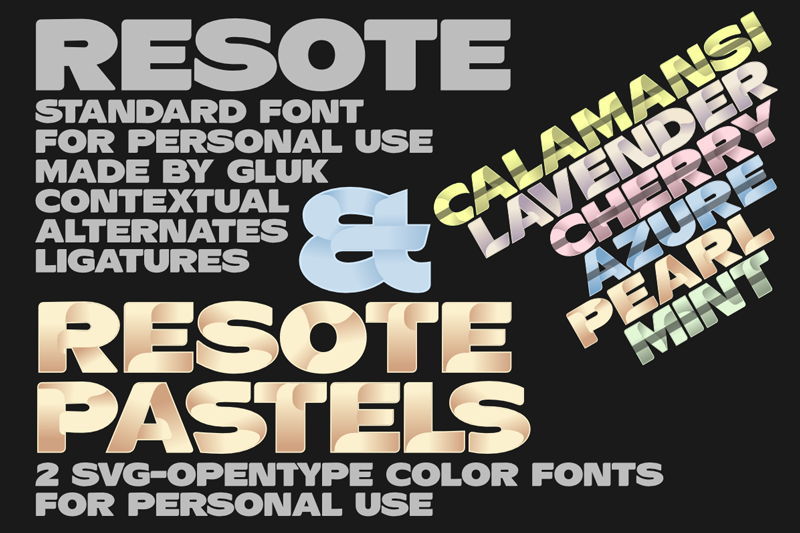
Preview and download ResotE Font. Created by gluk in Basic Sans serif styles with Free for personal use license.
ResotE-Pastels family was created inspired by the poetry of natural colors: the elegance of Pearls and romanticism of Lavender. Fully vector color Letters allow you to create any size headers, banners or advertising slogans. Because of the predefined pastel colors, of course, fonts work best on darker backgrounds. Automatic contextual alternates and ligatures built into the fonts compensate for whitespace area differences. Normal TTF ResotE (AllCaps) font is included in the package, which allows you to create text in smaller sizes in style of the ResotE family. Technical info to use: The package contains 2 color font variants in OpenTypeSVG TTF format and a normal TTF font in Black White. To be able to use the color files you need to have installed Adobe Photoshop CC2017, Adobe Illustrator CC2018, Mozilla Fire�fox or Microsoft Edge. This fonts are for PERSONAL USE ONLY and requires a license for commercial use. Fonts with license for commercial use can be purchased at: https://creativemarket.com/glukfonts/4294527-Color-fonts-ResotE-Pastels |